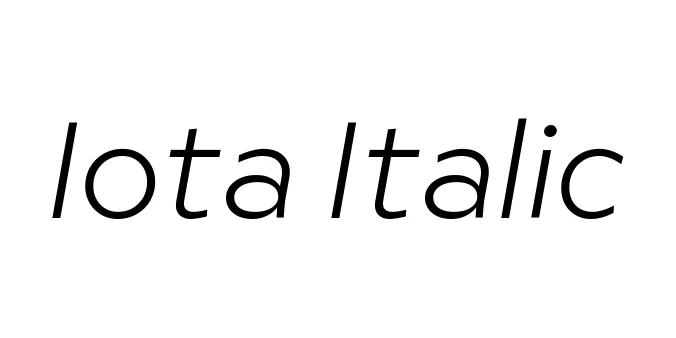
Iota Italic
Designed by Jason Smith
Iota Italic is a sophisticated contemporary sans-serif typeface designed by Jason Smith for the Fontsmith foundry. It distinguishes itself through a meticulous balance of geometric construction and humanist influence, providing a clean yet approachable aesthetic. The italic variant is specifically engineered to introduce a sense of kinetic energy and fluid motion without sacrificing the structural clarity that defines the Iota family.
This typeface was developed to meet the demands of modern communication, bridging the gap between technical precision and organic design. Its generous apertures and well-proportioned character widths ensure that Iota Italic maintains exceptional legibility across various screen resolutions and print media. It has since become a favored choice for designers looking for a versatile font that conveys professional authority with a modern, friendly touch.
Iota Italic Best Uses
Ideal for creating a clean and innovative brand presence.
Perfect for emphasis in body copy, pull quotes, and magazine layouts.
Highly effective for user interfaces requiring high legibility and a modern feel.
Great for sophisticated headlines and stylish promotional materials.